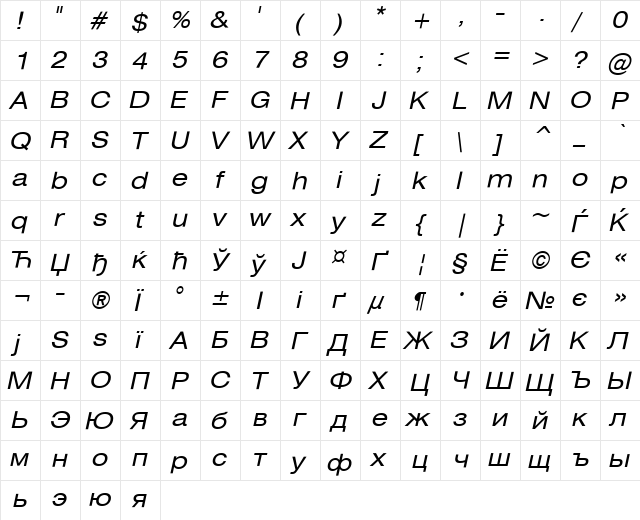
HeliosExt Regular
Design Context for HeliosExt Typeface
HeliosExt takes a measured approach to typography — its balanced proportions and neutral character make it a reliable workhorse for both digital and print work.
Pro Tip: Pair HeliosExt with a font of contrasting weight or personality to build a more expressive typographic hierarchy.